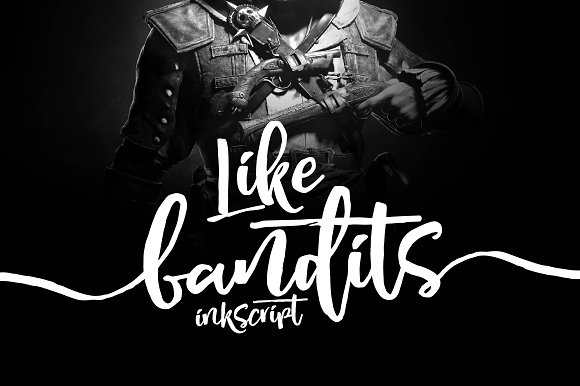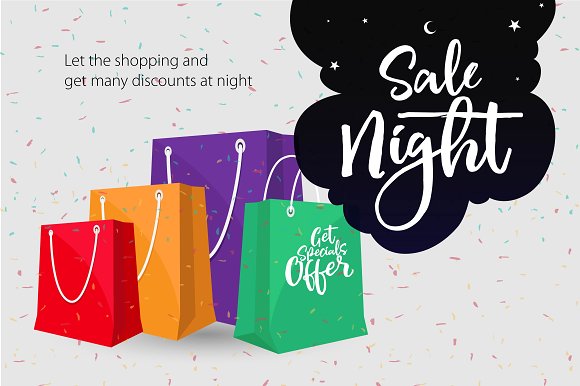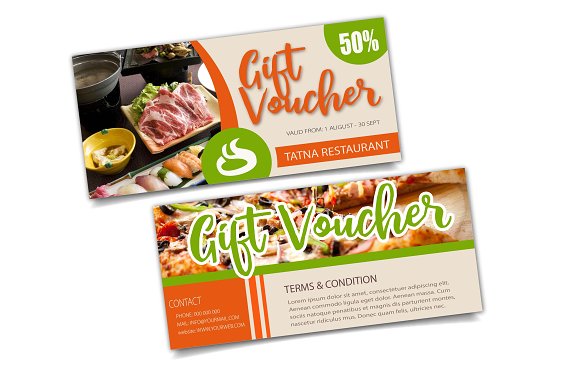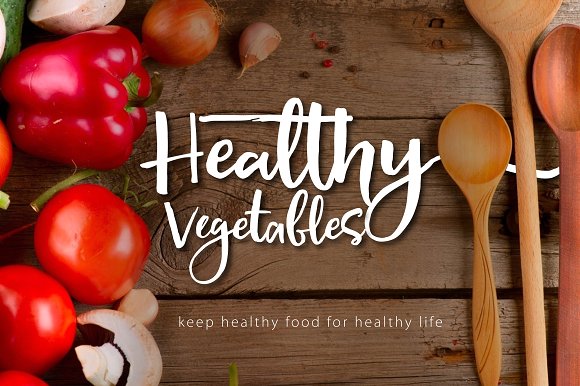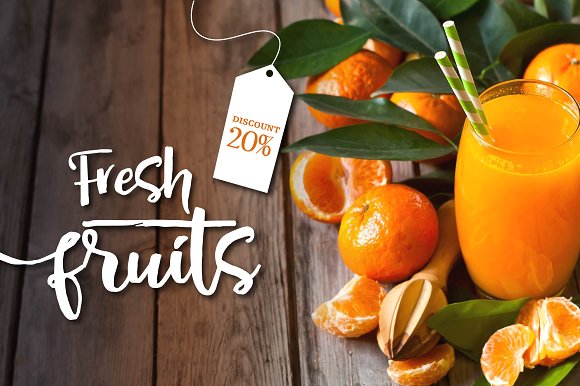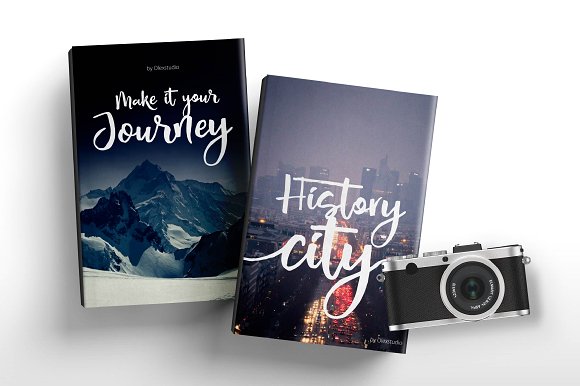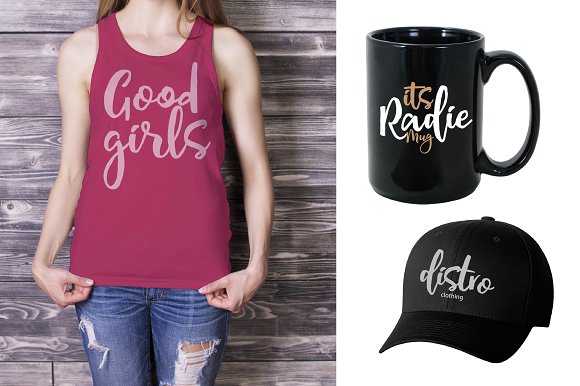
Like Bandits Ink Font
About Like Bandits Ink Font
Like Bandits Ink, a beautiful handwritten script. It’s a fluid font that works well in many different types of projects.
This professional looking font is easy to read and works well for marketing & branding as well as craft projects.